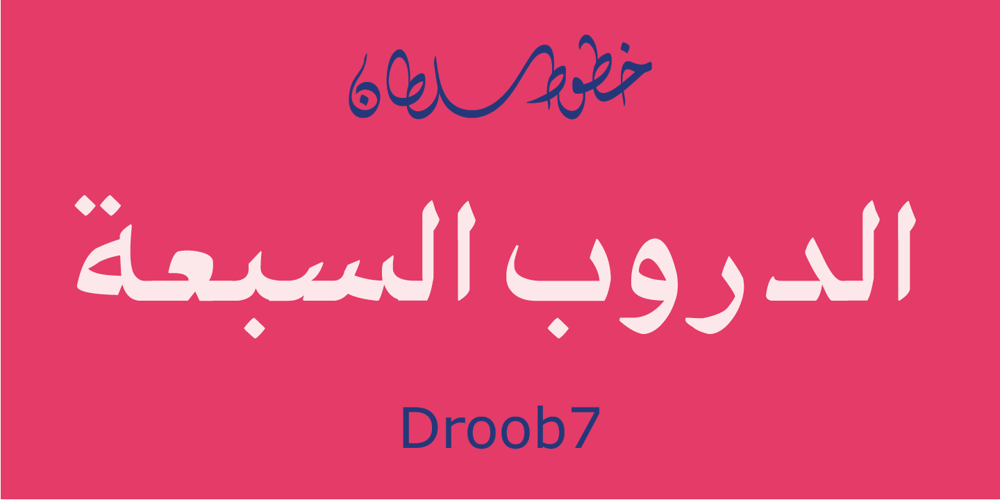
SF Droob7
SF Droob7 font
SF Droob7 Font Family was designed by Sultan Maqtari and published by Sultan Fonts. SF Droob7 contains 2 styles and family package options. Droob7 is An Arabic typeface for desktop applications, for websites and for digital ads. Currently prepared by the weight one has the alignment between the Arabic and Latin letters to serve the articles sites without resorting to other fonts in the page or article each. Droob7 font family contains two weights: normal and bold. This font supports Arabic and Latin, Persian and Urdu. The font (Droob7) is characterized by clarity and readability and ease of being a promising line very carefully to be used in Web sites (best size is 12-bit).